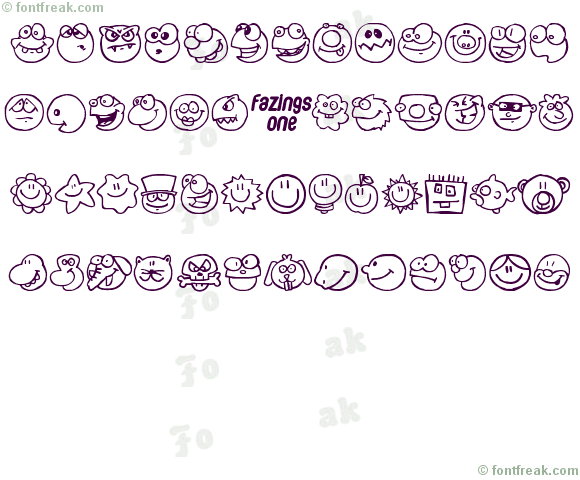
Fazings one
About Fazings One
Fazings One by Pizzadude is a striking display font that captivates with its unique blend of geometric shapes and playful character. This typeface is designed to stand out, making it ideal for a variety of creative applications. With a consistent stroke weight and minimal contrast, Fazings One exudes a modern aesthetic that is both friendly and approachable, making it a versatile choice for designers seeking to add a touch of whimsy to their projects. The spacing is carefully crafted to ensure readability while maintaining a playful vibe, allowing for easy integration into various design formats.
This font is particularly well-suited for use in eye-catching marketing materials, such as restaurant menus where its distinctive style can draw attention. Additionally, Fazings One shines in the realm of event graphics, making it a perfect fit for wedding invitations that seek to marry elegance with a hint of fun. Its playful nature also makes it an excellent choice for children’s book covers or promotional materials for family-oriented events. Graphic designers, small business owners, and content creators alike will find value in this font, as it opens up opportunities for creating engaging visuals that resonate with audiences.
What sets Fazings One apart is its ability to blend creativity with functionality. The font's design invites curiosity while remaining versatile enough to be used across various platforms and mediums. With its freeware licensing, the Fazings One font free download offers an accessible option for those looking to enhance their design toolkit without financial constraints. Whether you’re crafting a memorable logo or designing an inviting flyer, Fazings One stands ready to elevate your projects with its unique charm and style.